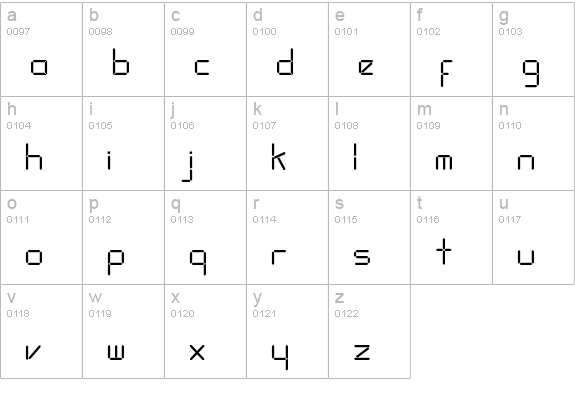
Digitalface Font Details
Introducing Digitalface font, a modern and sleek typeface designed for all your digital projects. With its clean lines and futuristic appeal, Digitalface is the perfect choice for websites, logos, and branding materials. This versatile font offers a range of weights and styles, making it suitable for a variety of design applications. The best part? Digitalface is available for free download at FontsMarket.com. Simply visit the website to access this cutting-edge font and start incorporating it into your designs today. Don't miss out on the opportunity to add a touch of sophistication and innovation to your projects with Digitalface font. Download it now and elevate your design game to the next level.